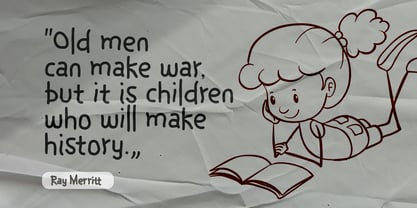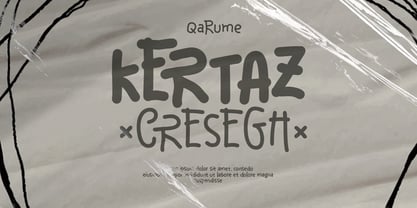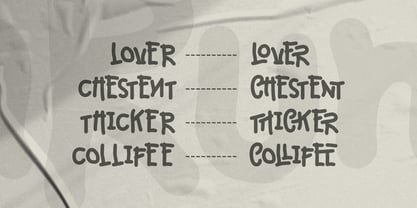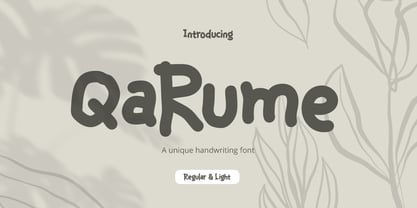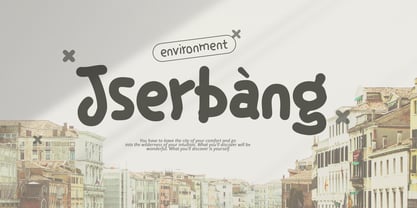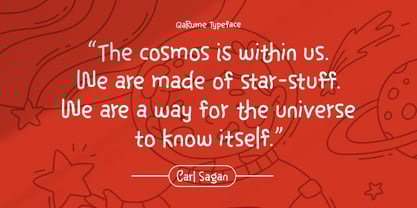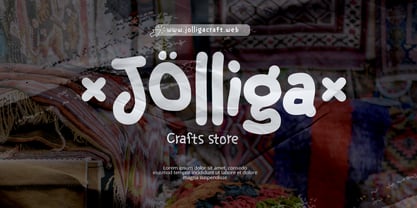
Qarume
by Grontype
The Qarume Font Family was designed by Jarnawi Saja and published by Grontype. Qarume contains 2 styles and family package options.
Qarume is a versatile and modern handwriting font that brings a playful and cheerful touch to any design. With its friendly curves and natural handwritten feel, Qarume is perfect for kid-themed projects, creative headers, or editorial layouts that need a lively personality.
This font comes in two styles, Regular and Light, giving you flexibility to adapt it for different moods and design needs. To add even more character, Qarume is equipped with unique ligature pairs that make your typography look natural and engaging.
Features:
• Playful handwriting font
• regular & light
• Uppercase & Lowercase
• Unique ligature pairs
• Basic Latin Glyphs
• Multilingual Support
• Numeral and Punctuation
• Ligatures & Alternates